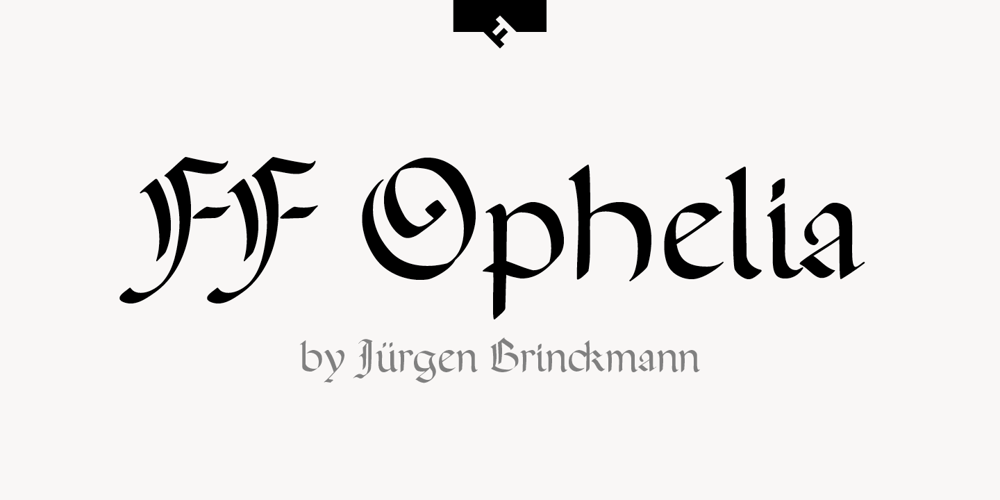
FF Ophelia Font Family was designed by Jürgen Brinckmann and published by FontFont. FF Ophelia contains 1 styles and family package options. German type designer Jürgen Brinckmann created this blackletter FontFont in 1993. The font is ideally suited for film and tv, poster and billboards as well as software and gaming. FF Ophelia provides advanced typographical support with features such as ligatures, alternate characters, and stylistic alternates. It comes with proportional oldstyle figures.